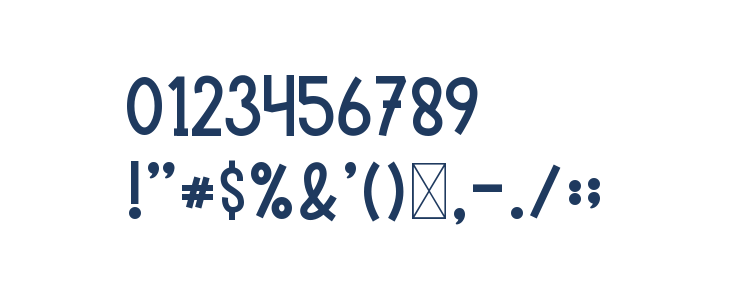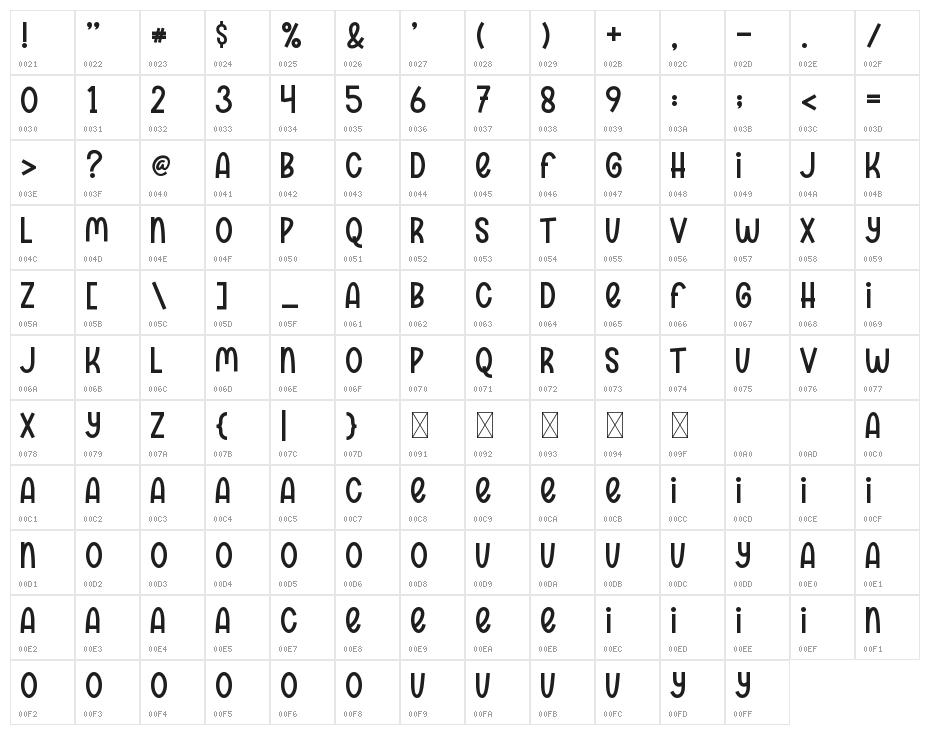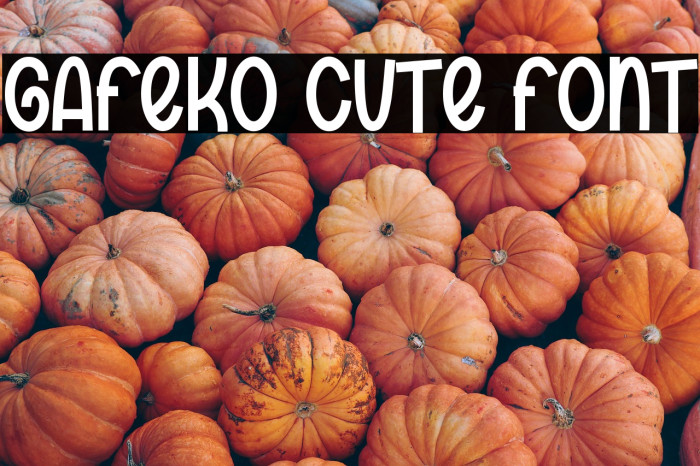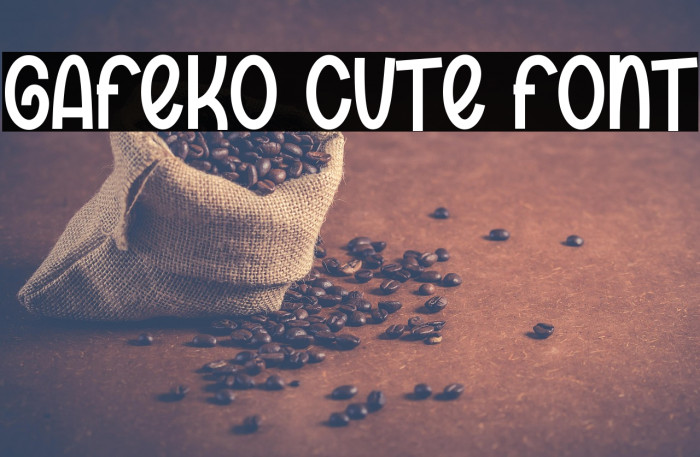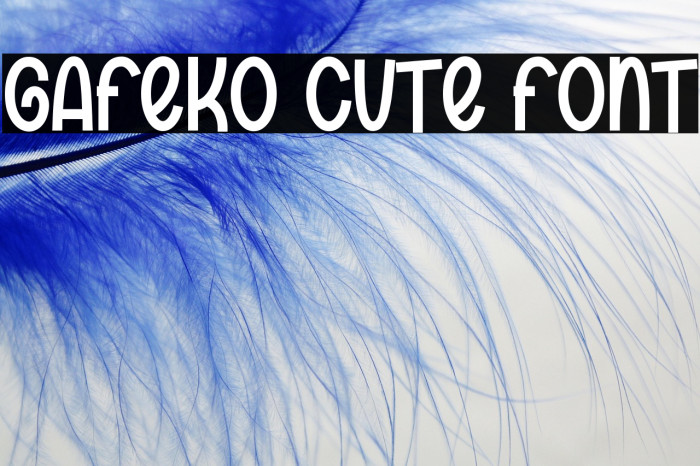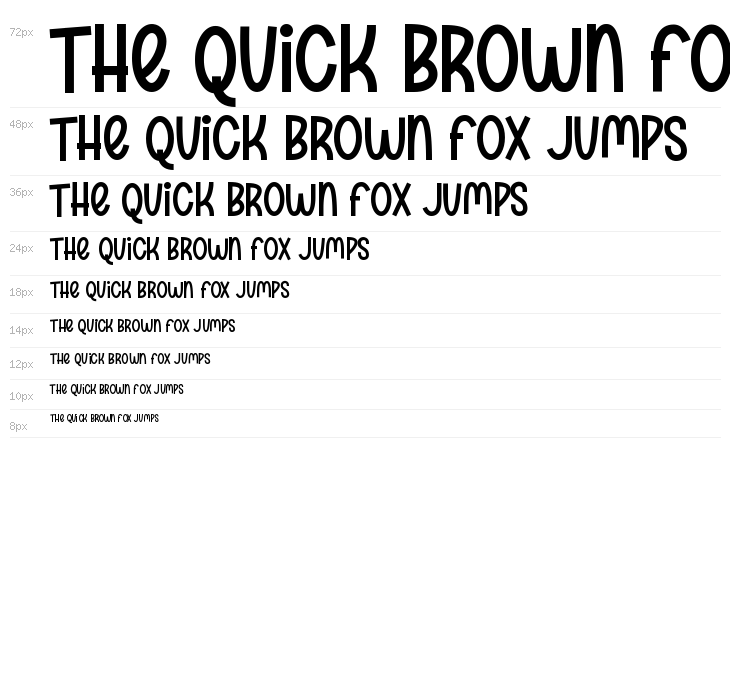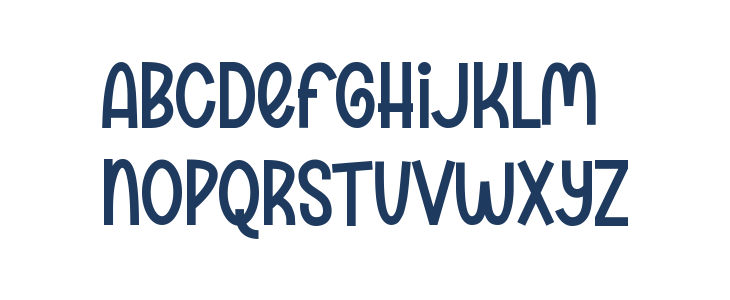
Gafeko Cute Font Font
Gafeko Cute Font Description
This font features a playful and whimsical design, characterized by its rounded and slightly exaggerated letterforms. The uppercase and lowercase letters maintain a consistent style, with smooth curves and a friendly appearance. The numbers and special characters follow the same playful aesthetic, making it suitable for creative and informal projects. The overall look is approachable and fun, perfect for designs that aim to convey a sense of joy and lightheartedness.
| Proposed Projects | Ideal for children's books, playful branding, greeting cards, and party invitations. |